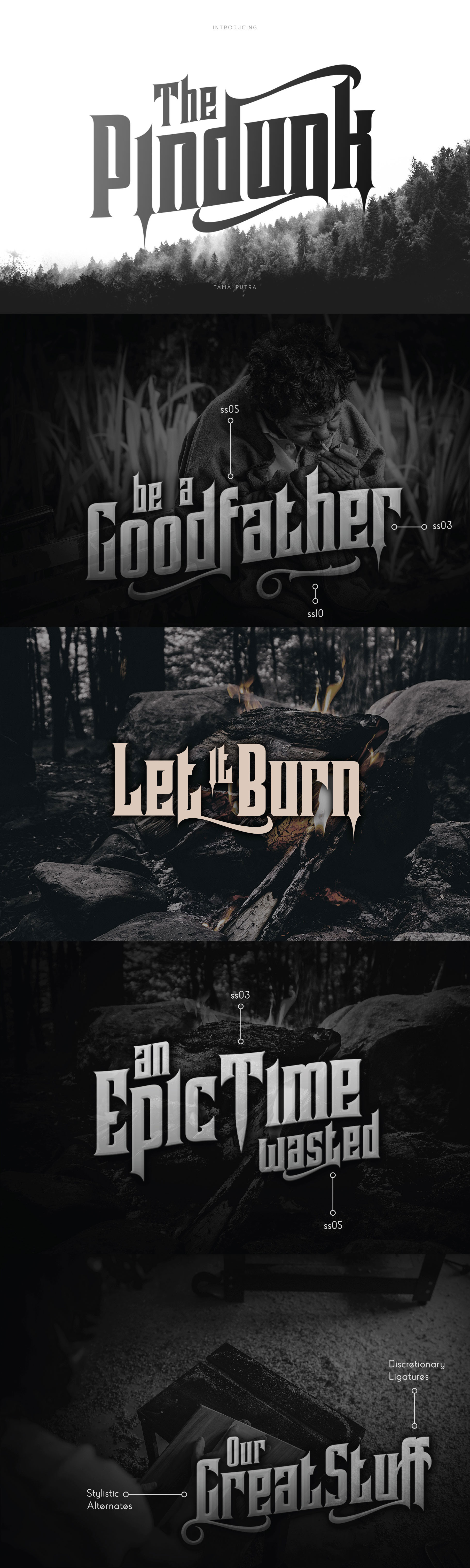
Pindunk Decorative Typeface
Pindunk Typeface
Pindunk is a typeface inspired from gothic style.
It includes a full set of uppercase and lowercase letters as well as multi-lingual and currency support, numerals, punctuation, alternates, ligatures and some extra glyphs.
- Character Set A-Z (Uppercase & Lowercase)
- Titling
- ss01, ss02, ss03, ss04, ss05, ss06, ss07, ss08, ss09, ss10
- Standard & Discretionary Ligatures
Pindunk typeface is suitable font for creating beautiful things and many creative work.